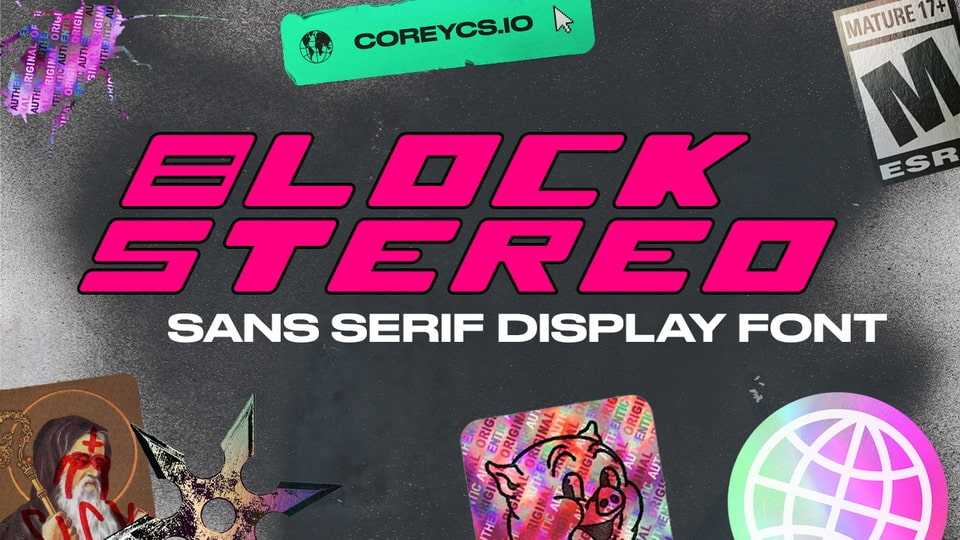
Download Block Stereo font, a retro-inspired bold sans display typeface. Block Stereo font has a symmetrical and balanced structure that allows designers to utilize it for a variety of aesthetics.